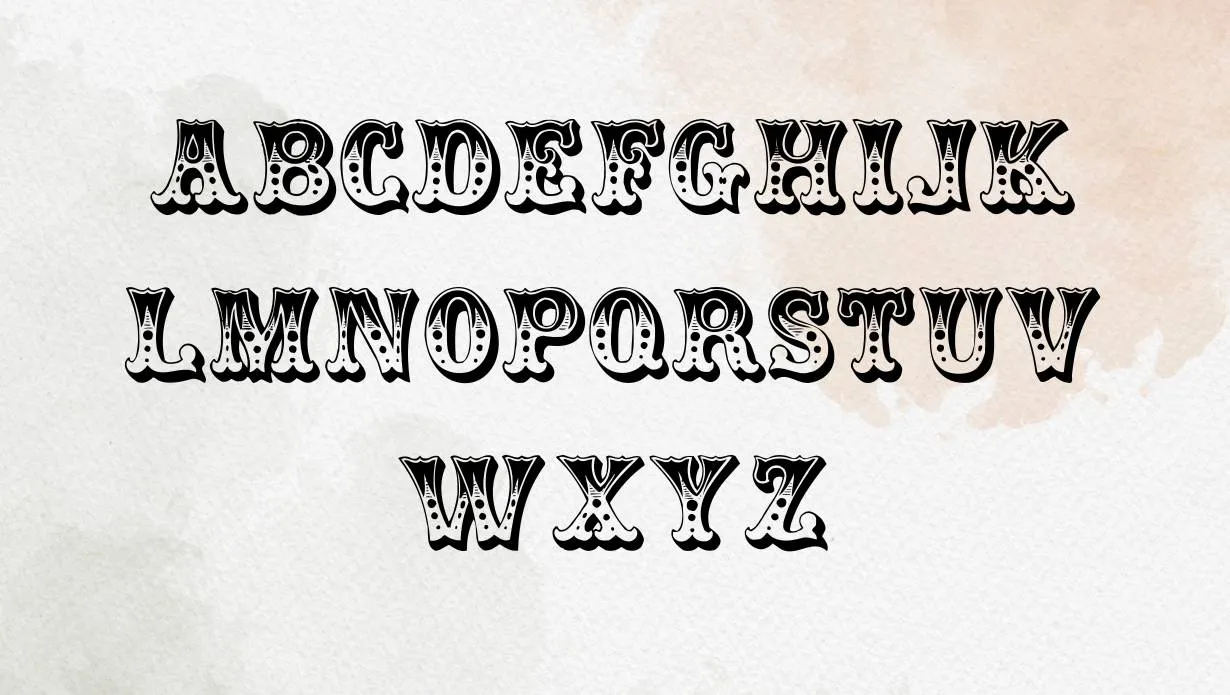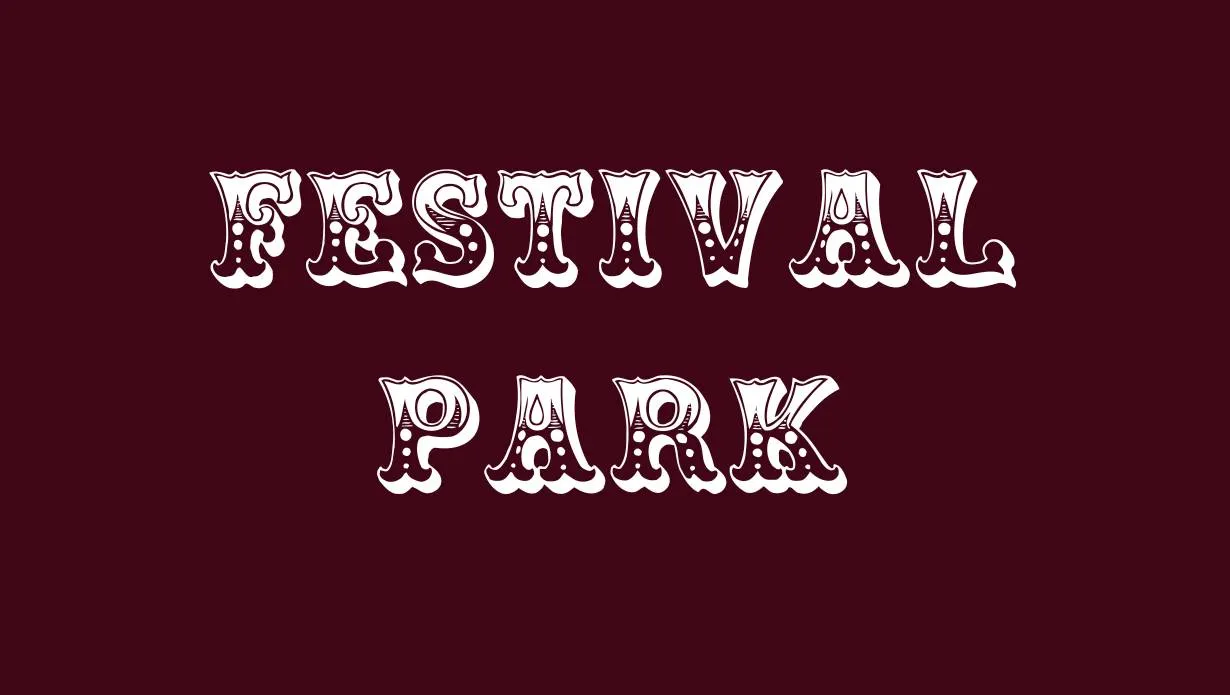
Circus Font belongs to the fancy font family with a slight touch of the retro font family as well. The characters of this font are filled with black shade and dots at the edges and have a bold appearance.
This typeface is similar to so weird place font. The pairing feature of this typeface helps a lot to give a unique appearance to your designed project.